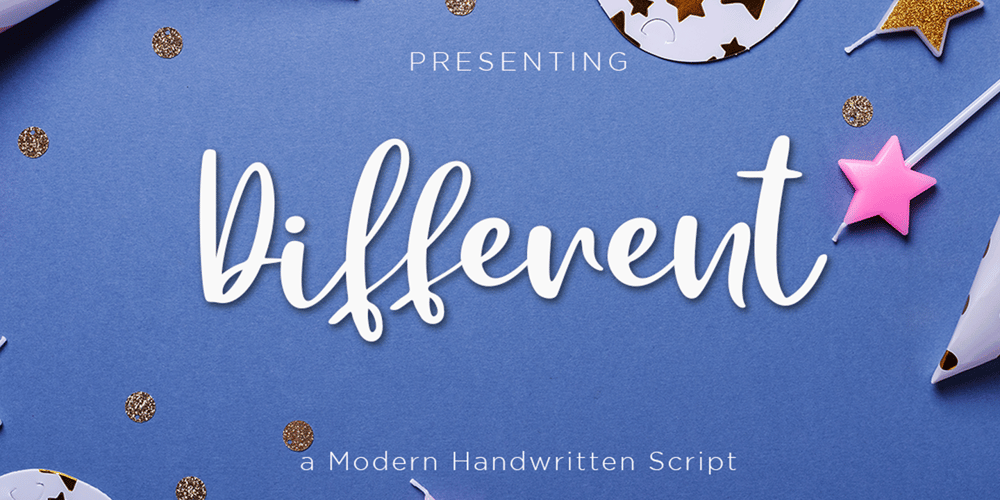
Different
Different font
Different Font Family was designed by Sarwo Edhi Prayitno and published by Haksen. Different contains 1 styles and family package options. Different is a Bold beauty handwritten script style with upper and lowercase feel nice balanced. Its wide range of uppercase and lowercase alternates allow versatile design options and works perfectly for headlines, logos, posters, packaging, T-shirts, postcards and much more.Ligatures feature is default setting in Adobe Illustrator or Adobe Photoshop in Uppercase character. So when you want not to use the ligatures.Open glyphs panel : In Adobe Photoshop choose tool Window >> Character and then please klick fi symbol In Adobe Illustrator choose tool Window >> Type Open Type and then please klick fi symbol Have a great day,Haksen